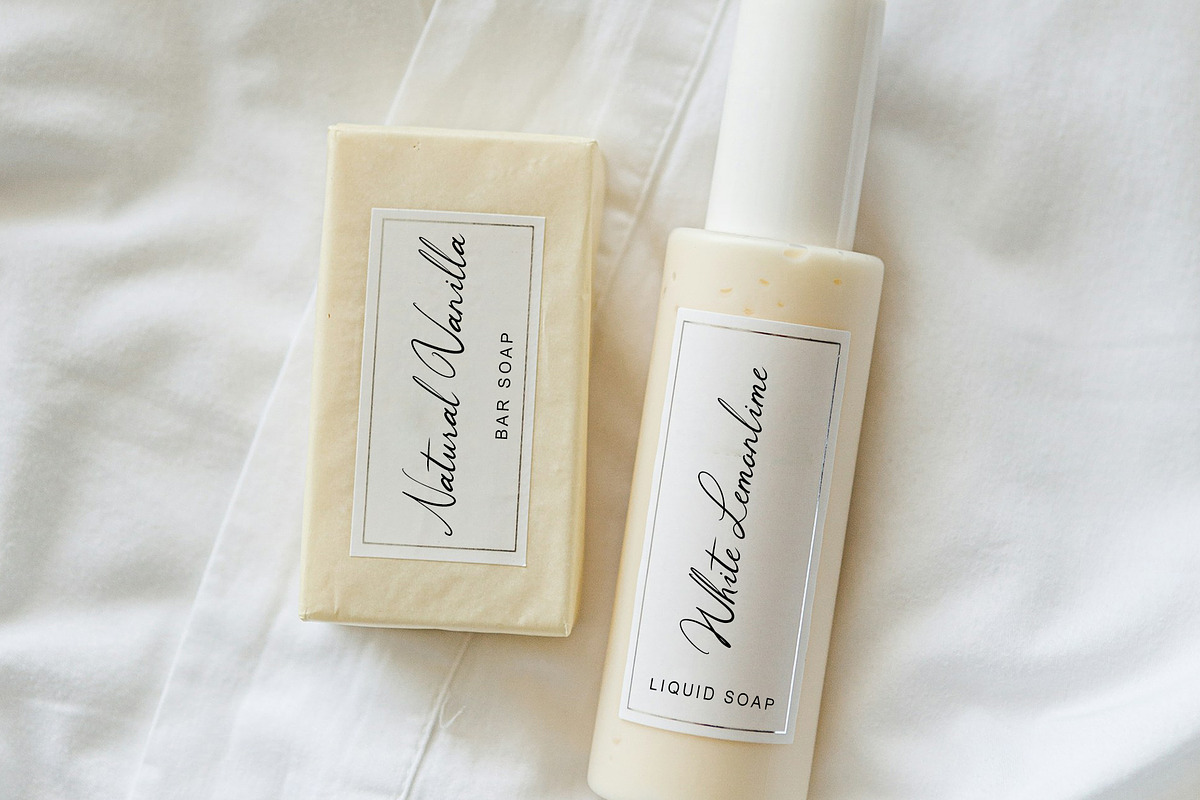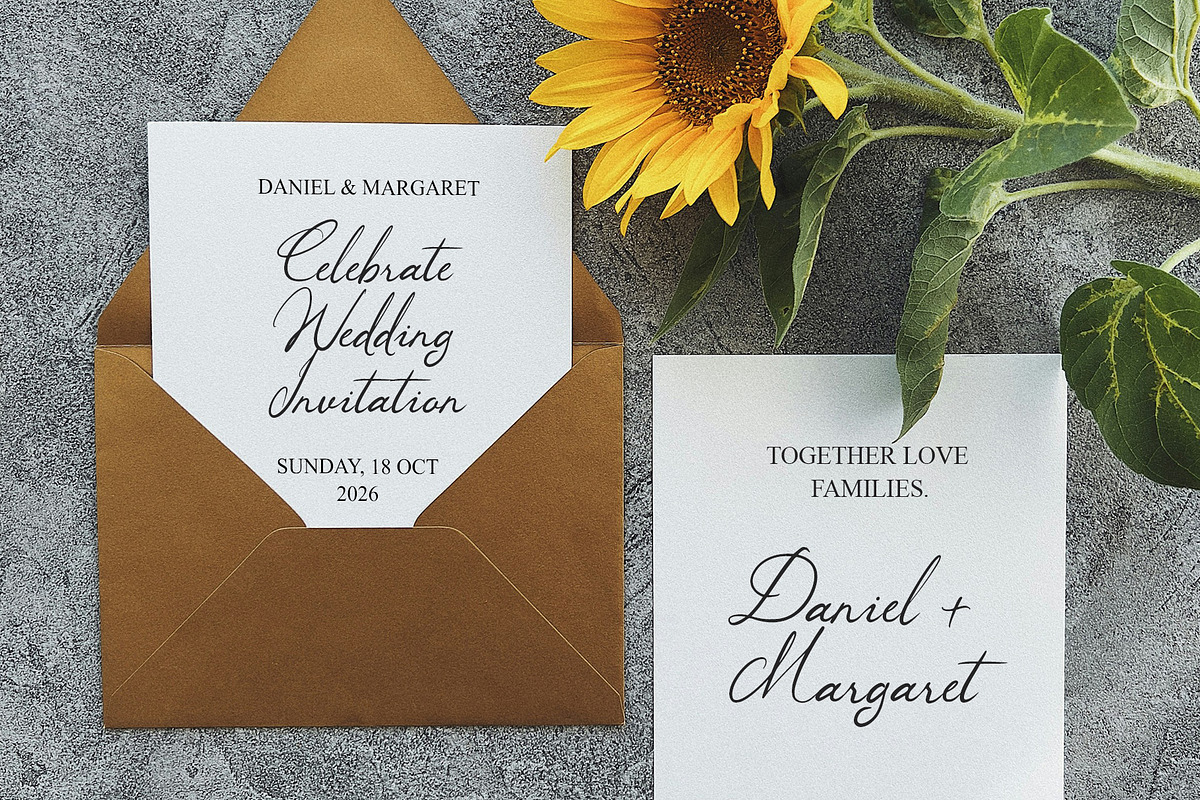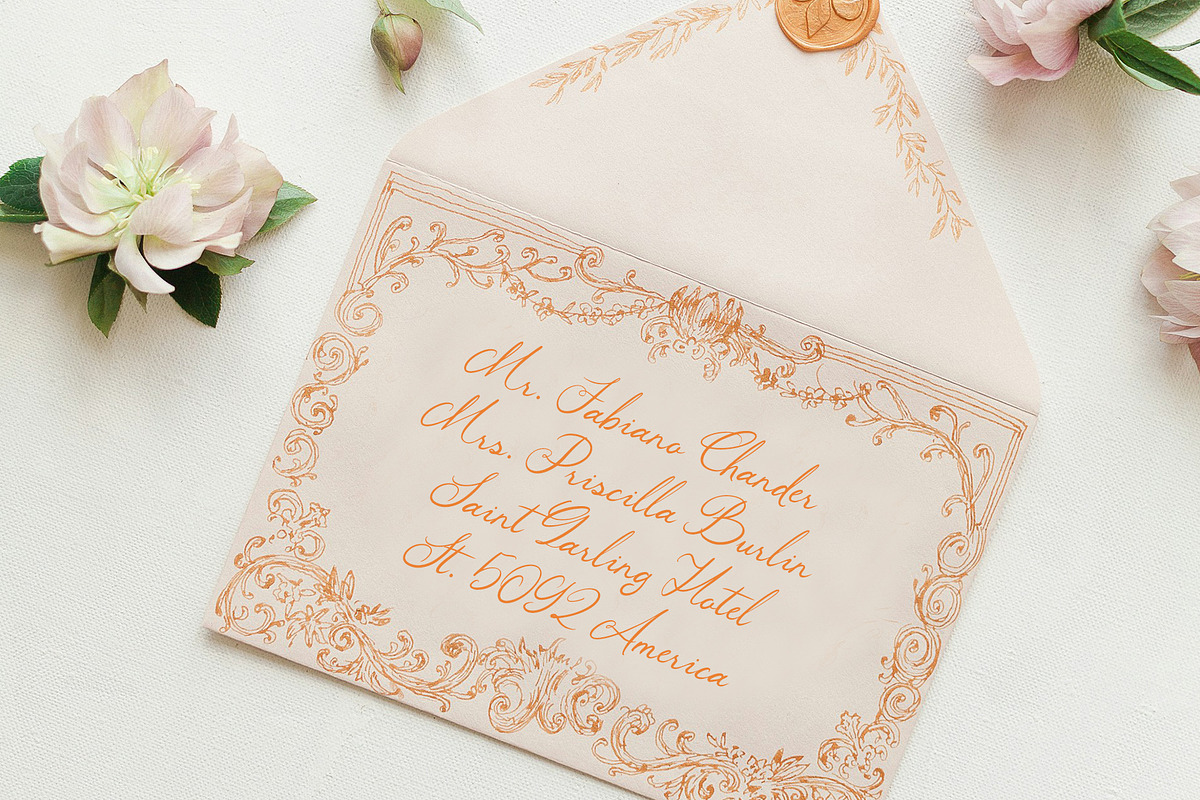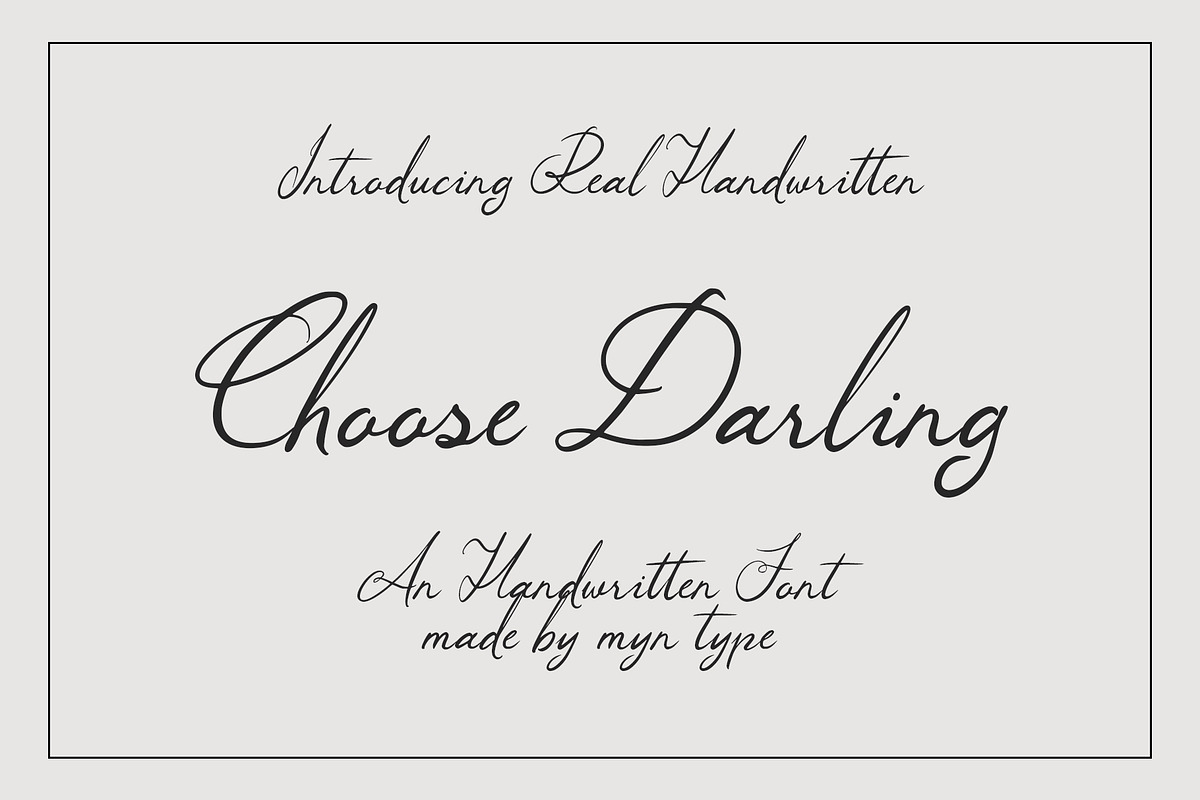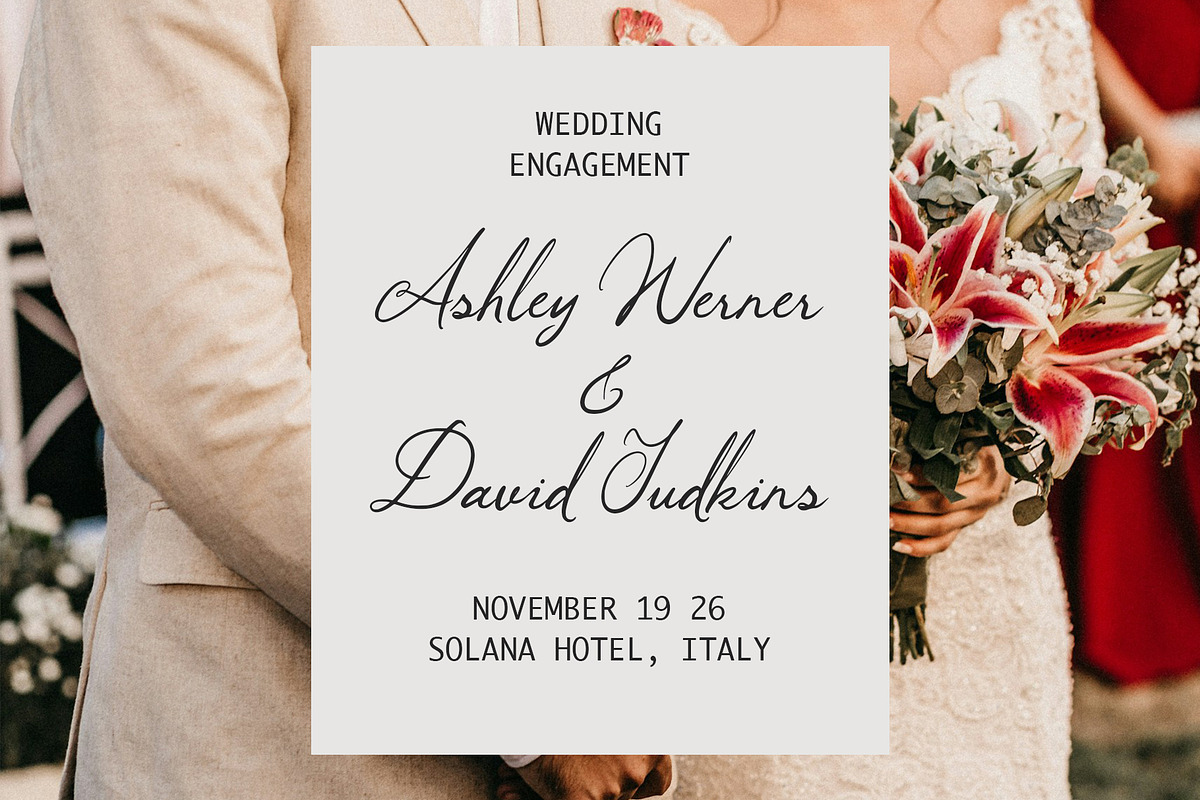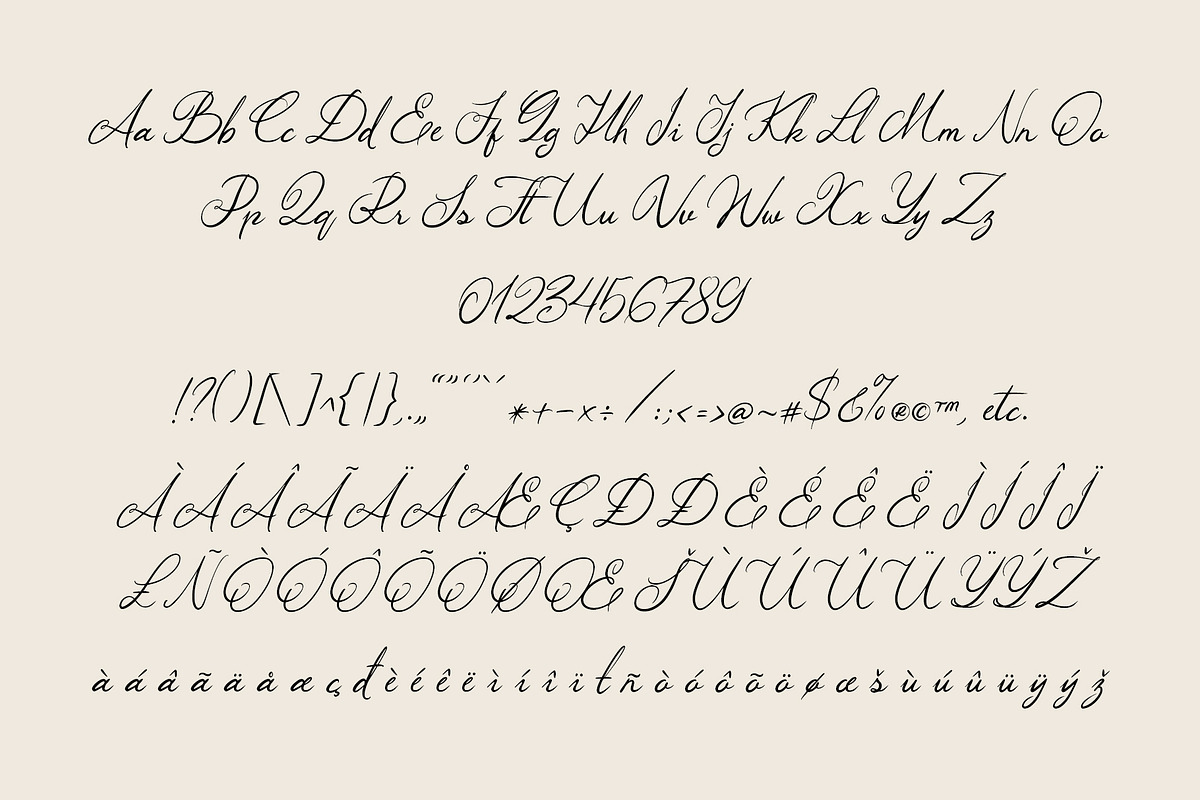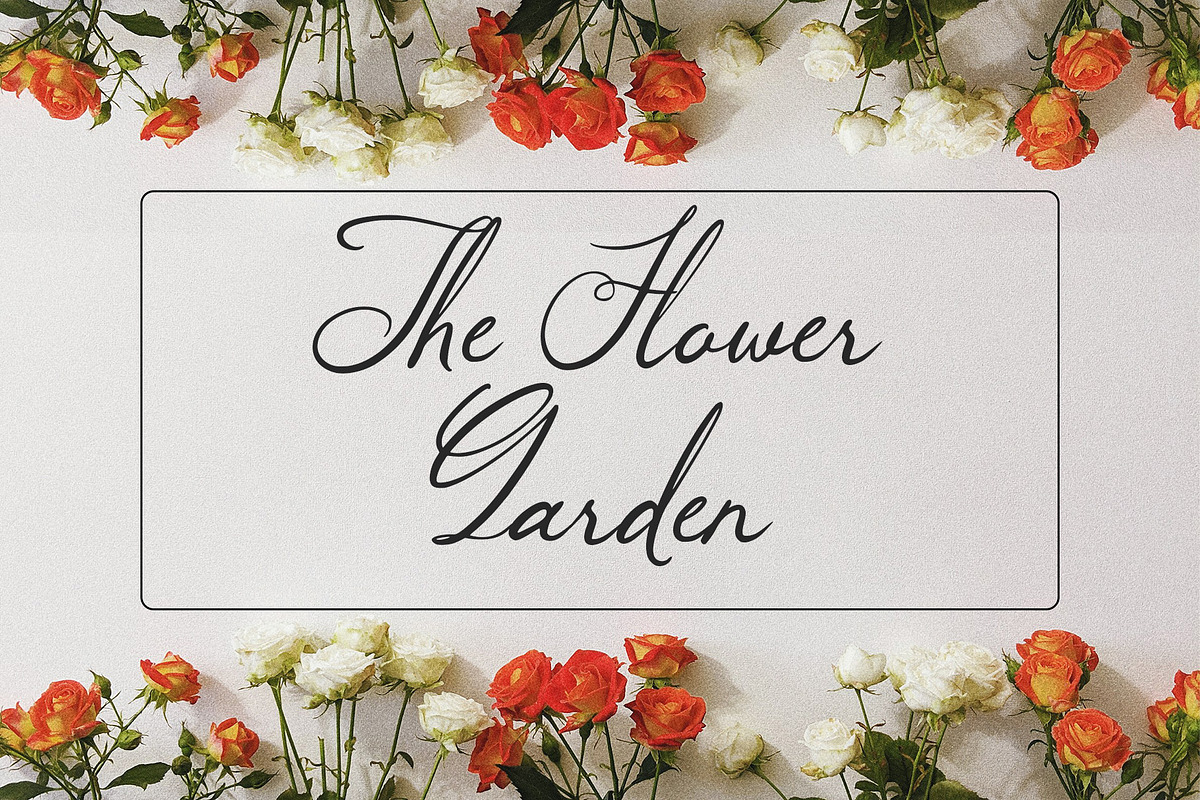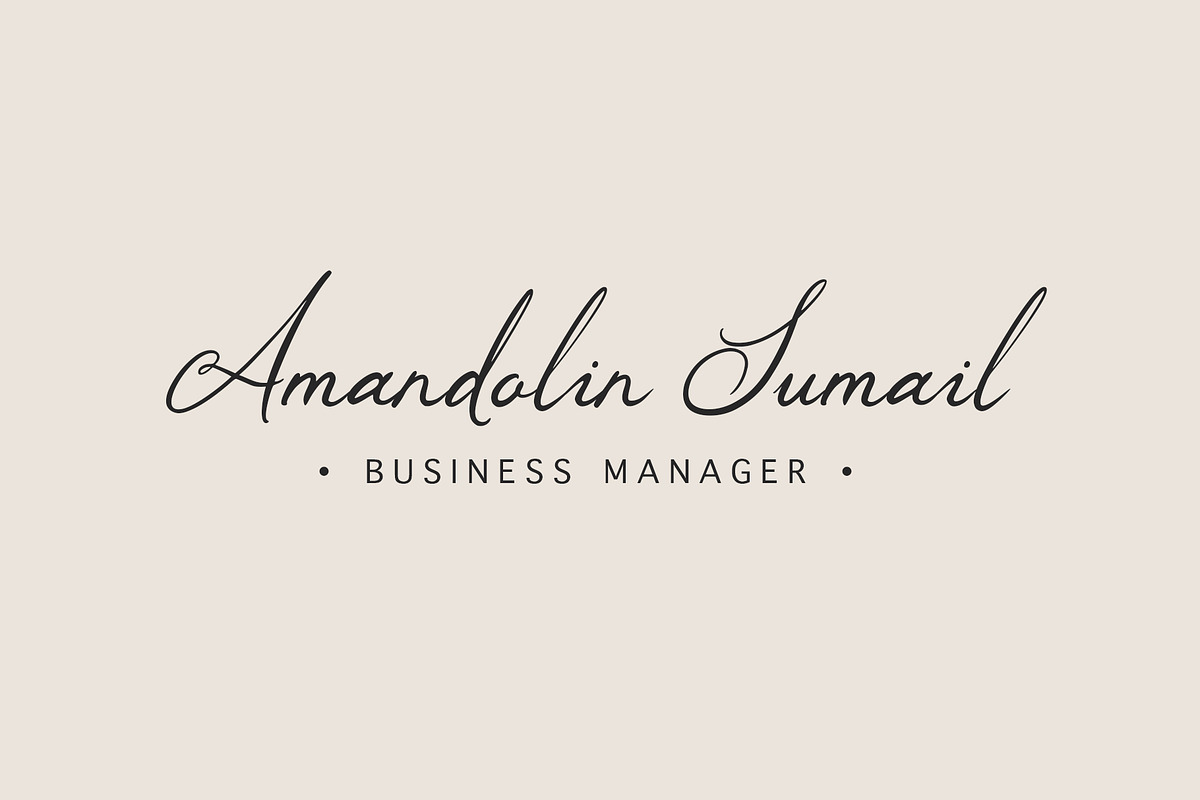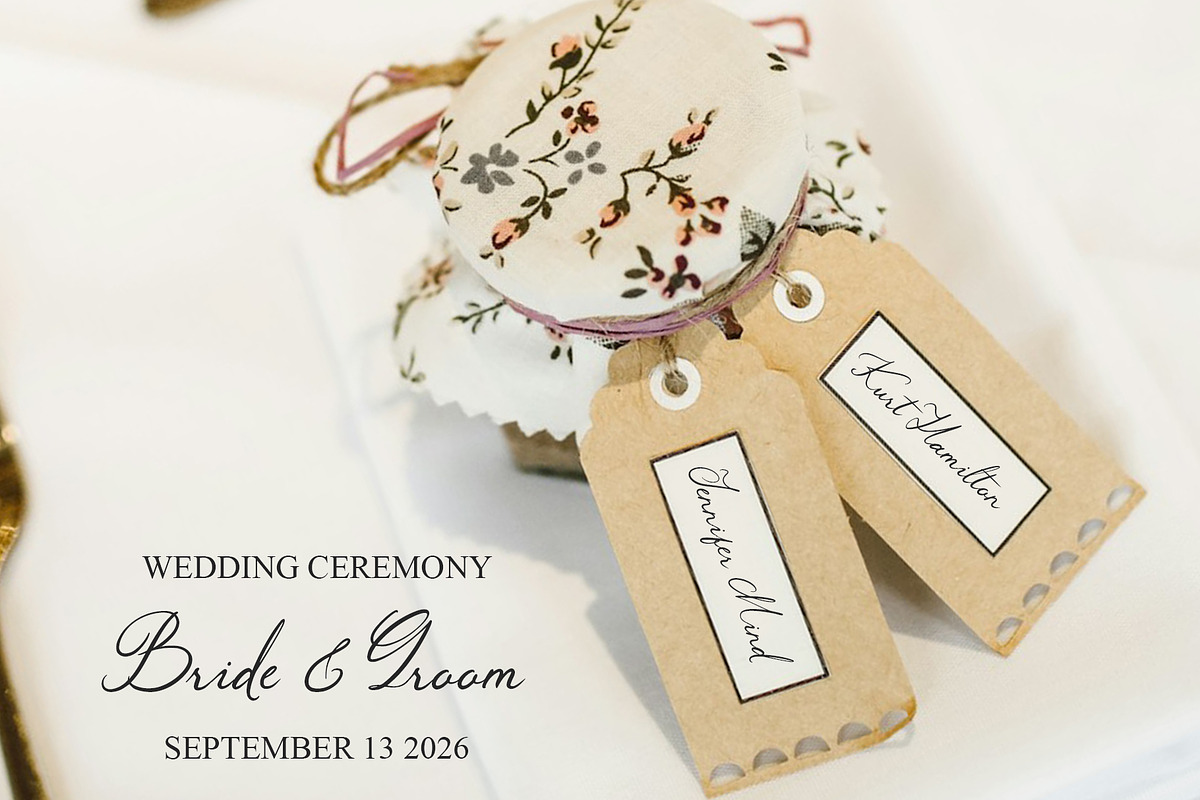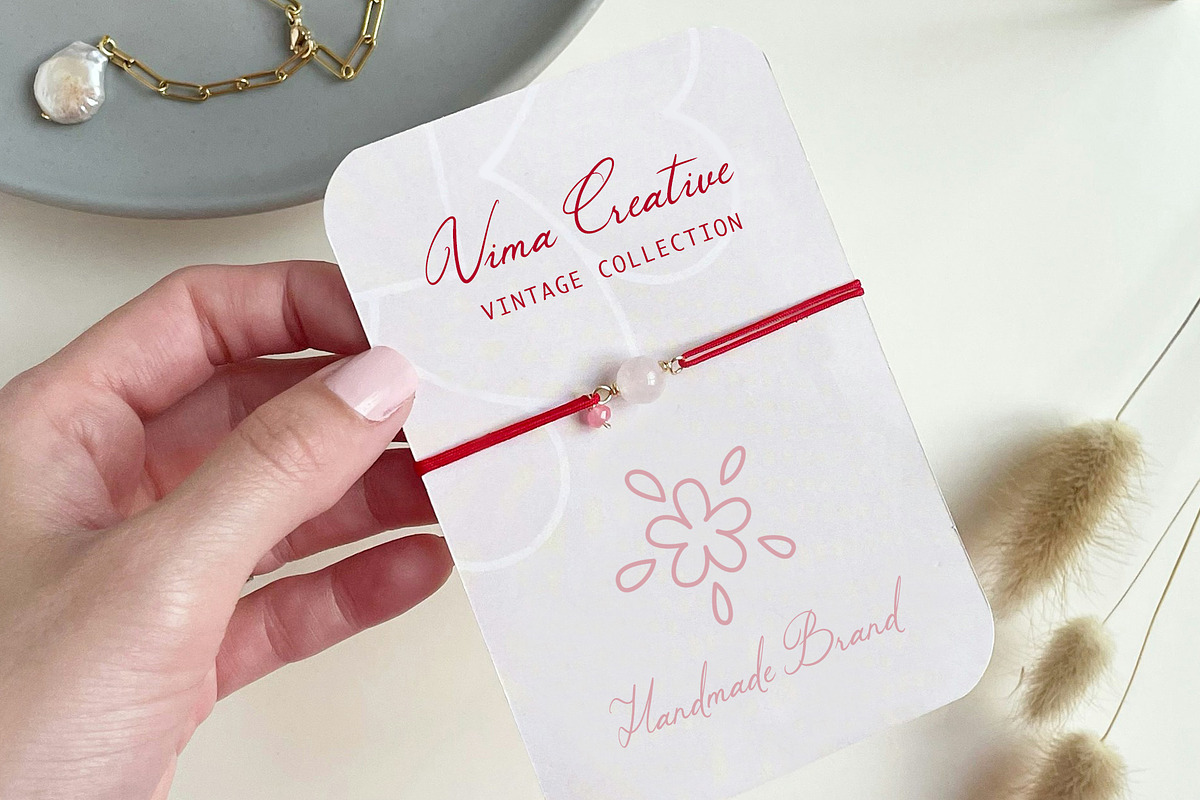
Choose Darling - Romance Handwritten
Choose Darling is a fancy handwritten script calligraphy font that capitaving fusion of natural handwritten, calligraphy with simple ornaments and classic touches with natural rhythm strokes. So giving a vintage, classic and beautiful impression in any project.
This font perfect for wedding desing, branding, calligraphy logos, display product, invitation design, and other design elements that require a romance, vintage, and classic touch.